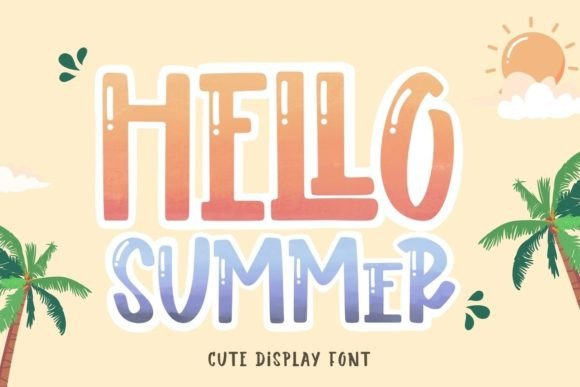
Say hello to Hello Summer Font, the perfect display font for anyone who wants to add a touch of fun and playfulness to their designs. Whether you're creating banners, social media posts, mugs, or anything else, this font is the perfect choice. Created by AnningArts, this font is not only cute and eye-catching but also highly versatile and perfect for a wide variety of projects.
One of the best things about Hello Summer Font is that it's PUA encoded, which means that you can access all of its delightful glyphs and swashes with ease. This makes it incredibly easy to create stunning designs that are sure to grab people's attention.
If you're looking for the best font for business video, Hello Summer Font is definitely worth considering. Its playful and cheerful vibe is perfect for businesses that want to connect with their audience on a more personal level.
But don't just take our word for it - try it out for yourself! Once you start using Hello Summer Font, you'll quickly see just how versatile and fun it can be. You'll be able to create stunning designs that are sure to get noticed and make an impact.
In summary, if you want to add a touch of fun and playfulness to your designs, Hello Summer Font is the perfect choice. With its cute and eye-catching design, versatile nature, and PUA encoding, it's a font that you'll be sure to love.